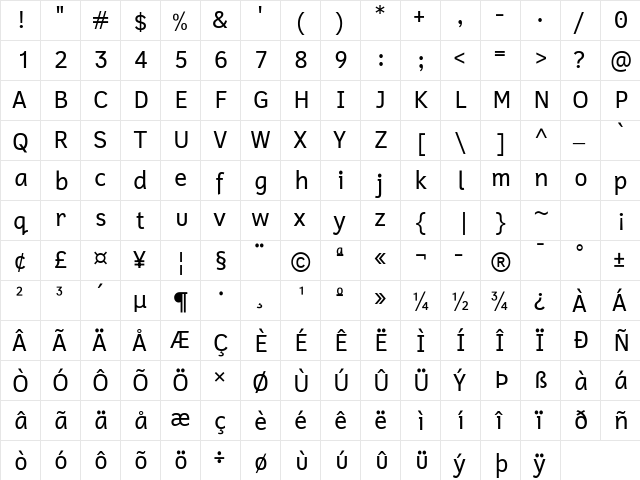
Cadman Regular
| Designer | Paul James MIller |
Design Context for Cadman Typeface
Cadman offers clean, dependable letterforms without strong stylistic allegiance, making it a practical choice for designers who need flexibility.
Pro Tip: Pair Cadman with a font of contrasting weight or personality to build a more expressive typographic hierarchy.